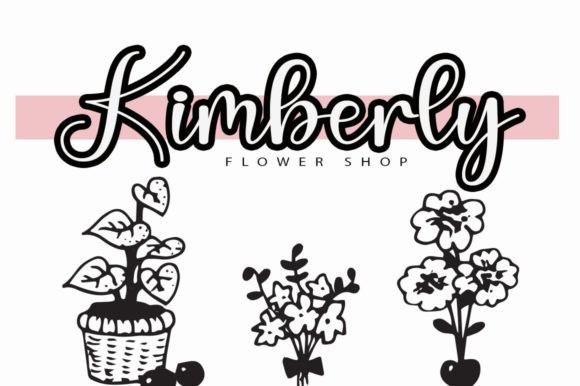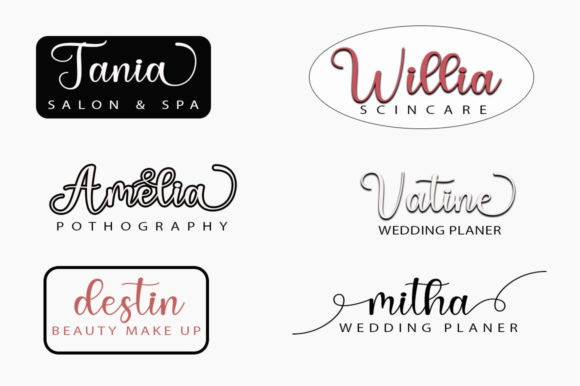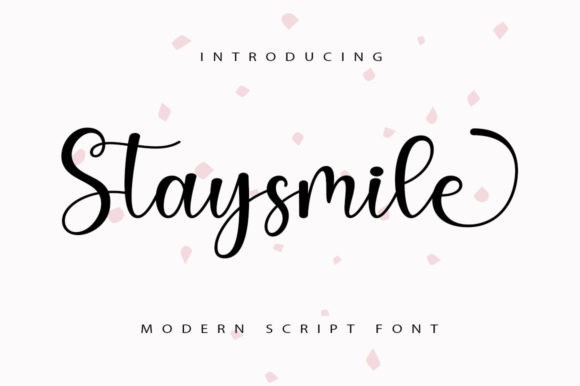
Stay Smile Typeface
Stay Smile Script Font is a chic, refined script font that emanates sophistication and elegance. Its stylish alternates and ligatures make it the perfect match for any project.